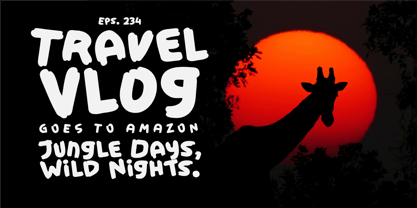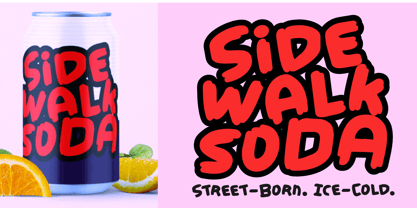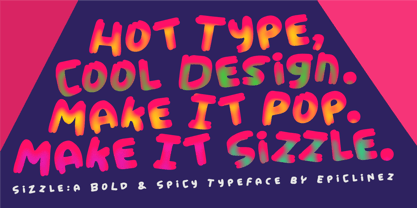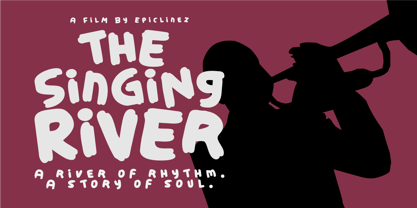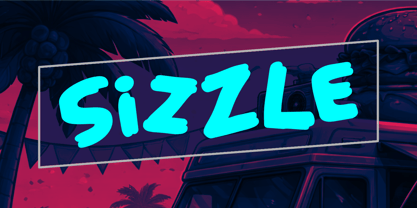
Sizzle
by Epiclinez
The Sizzle Font Family was designed by Aldy Sidik and published by Epiclinez. Sizzle contains 1 styles. More about this family
Sizzle is a bold, spicy display font built to bring instant heat to your designs. Inspired by sizzling street food signs, retro diner menus, and loud poster typography, this font delivers strong shapes, a punchy personality, and eye-catching readability. Perfect for food branding, restaurant menus, BBQ logos, snack packaging, streetwear, poster titles, YouTube thumbnails, movie headlines, and festival promotions, Sizzle adds flavor and energy to your design. If you want typography that feels crispy, fun, bold, and unforgettable, Sizzle Font is ready to serve